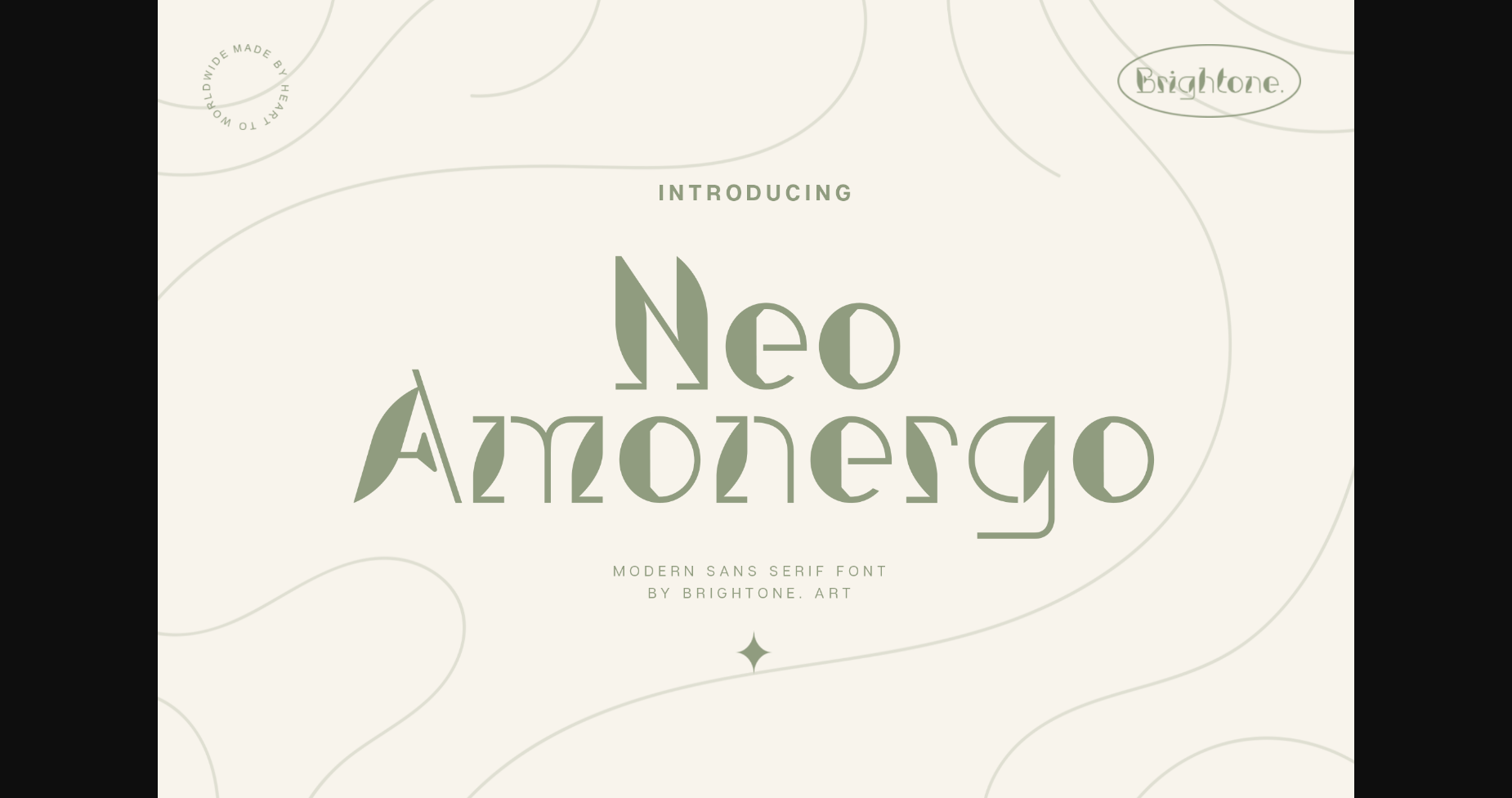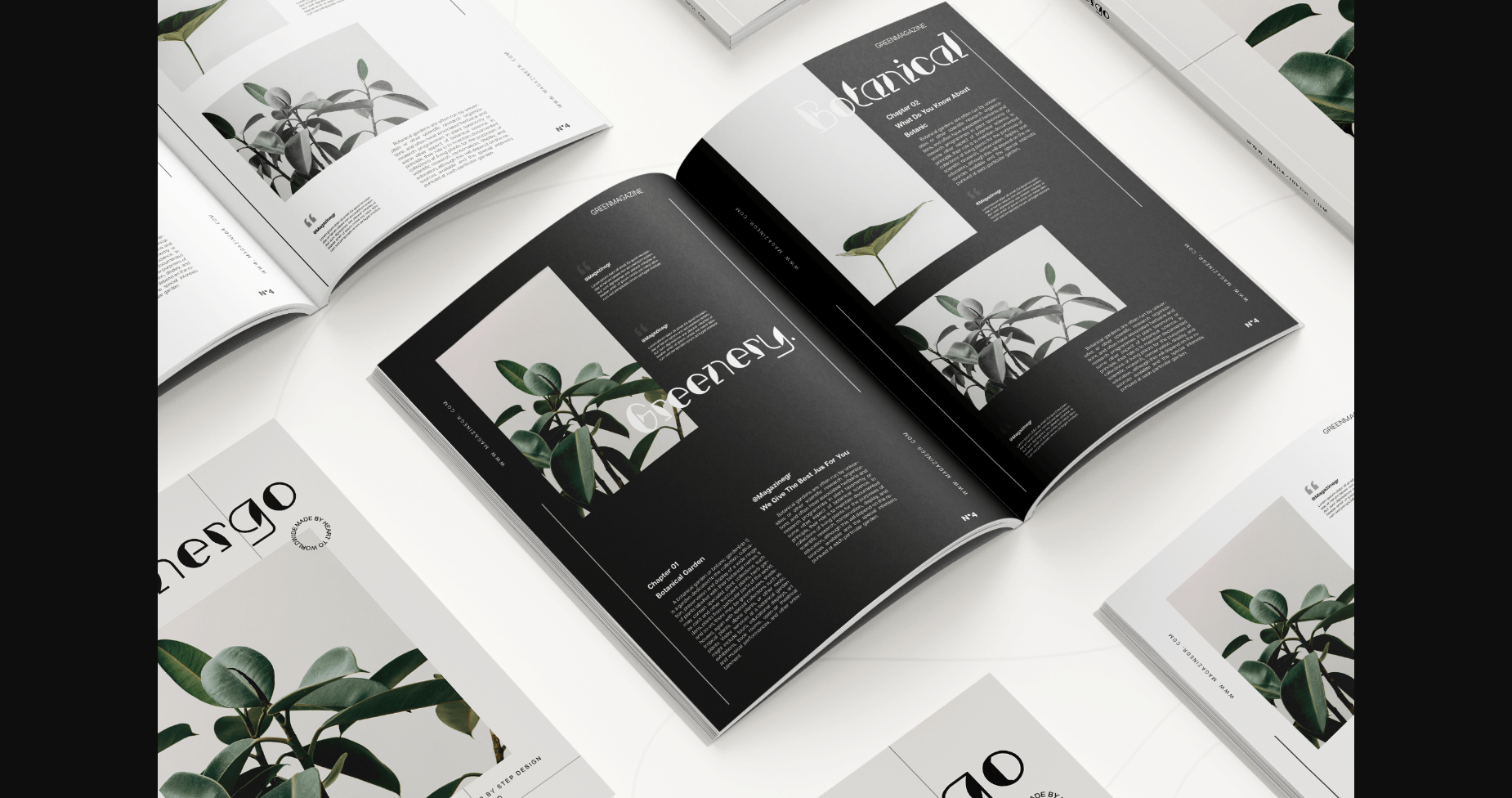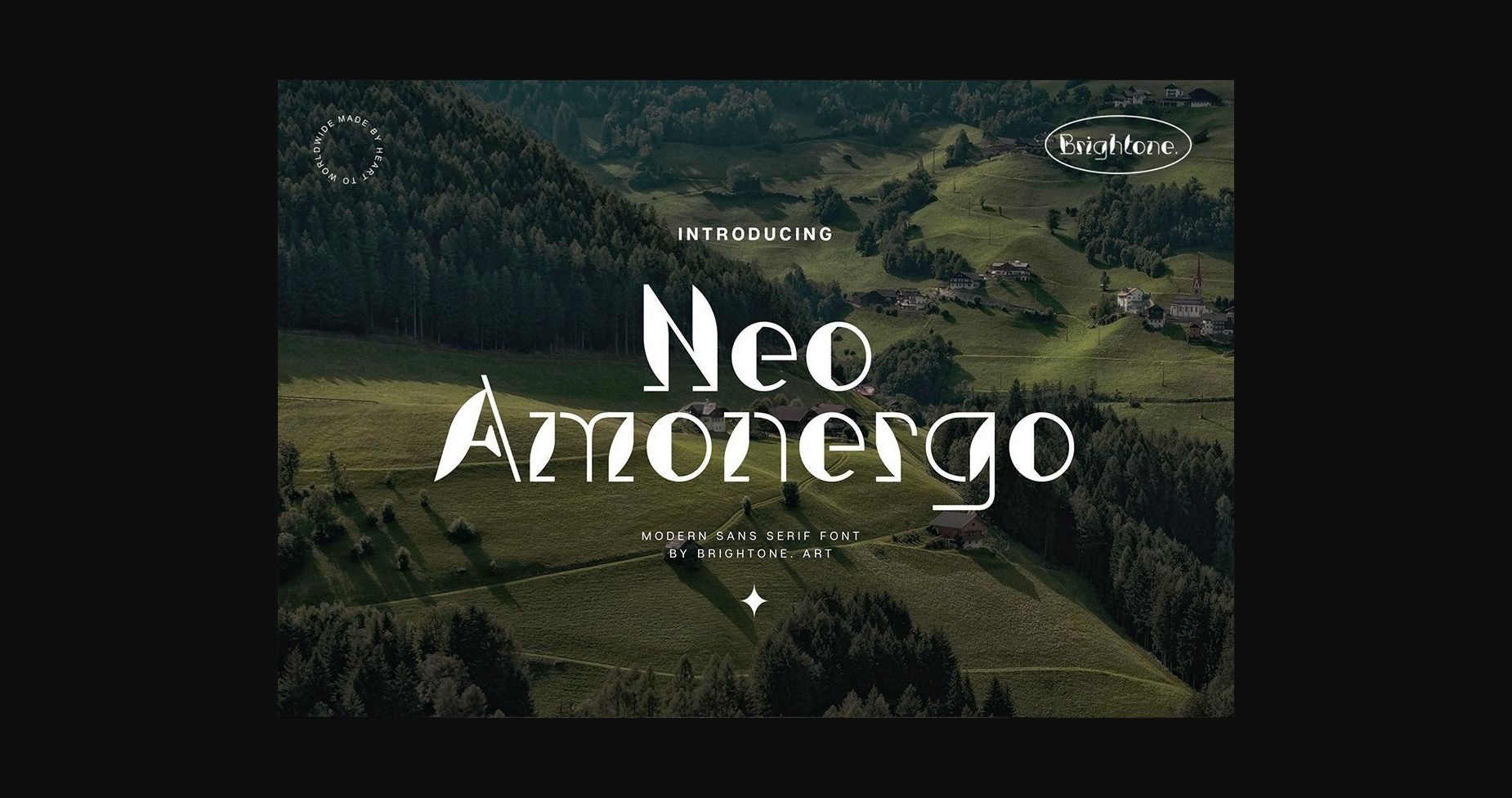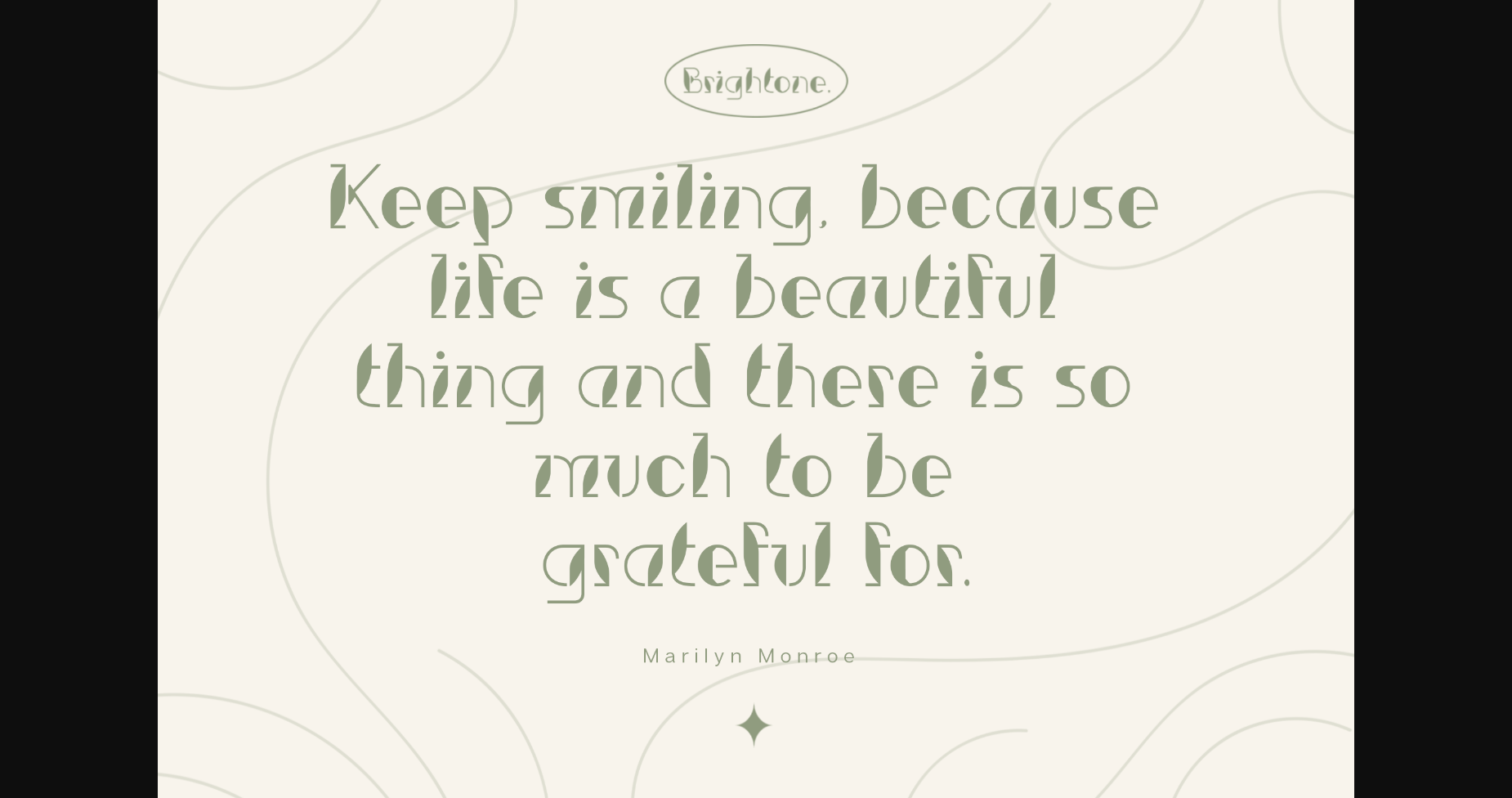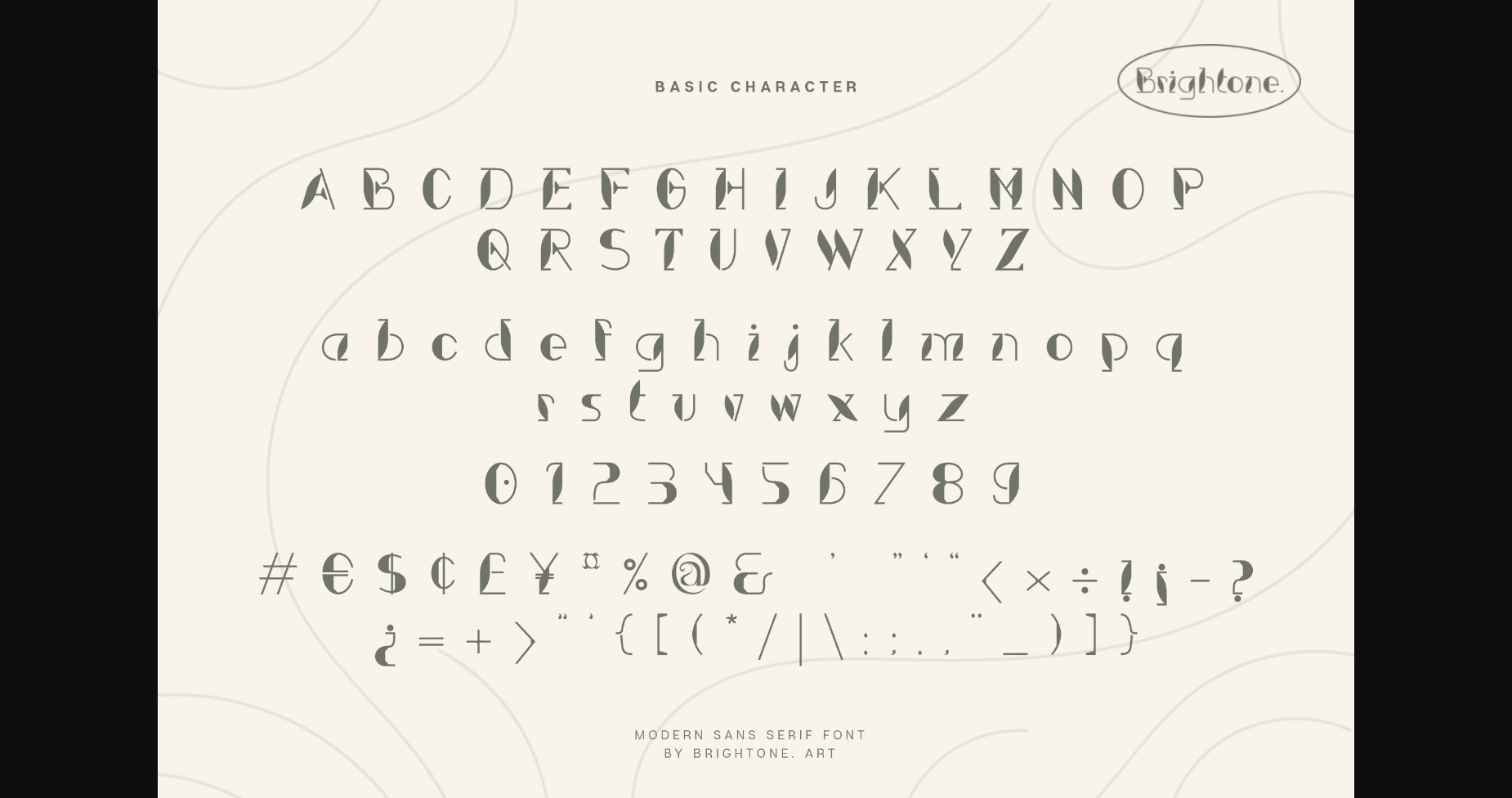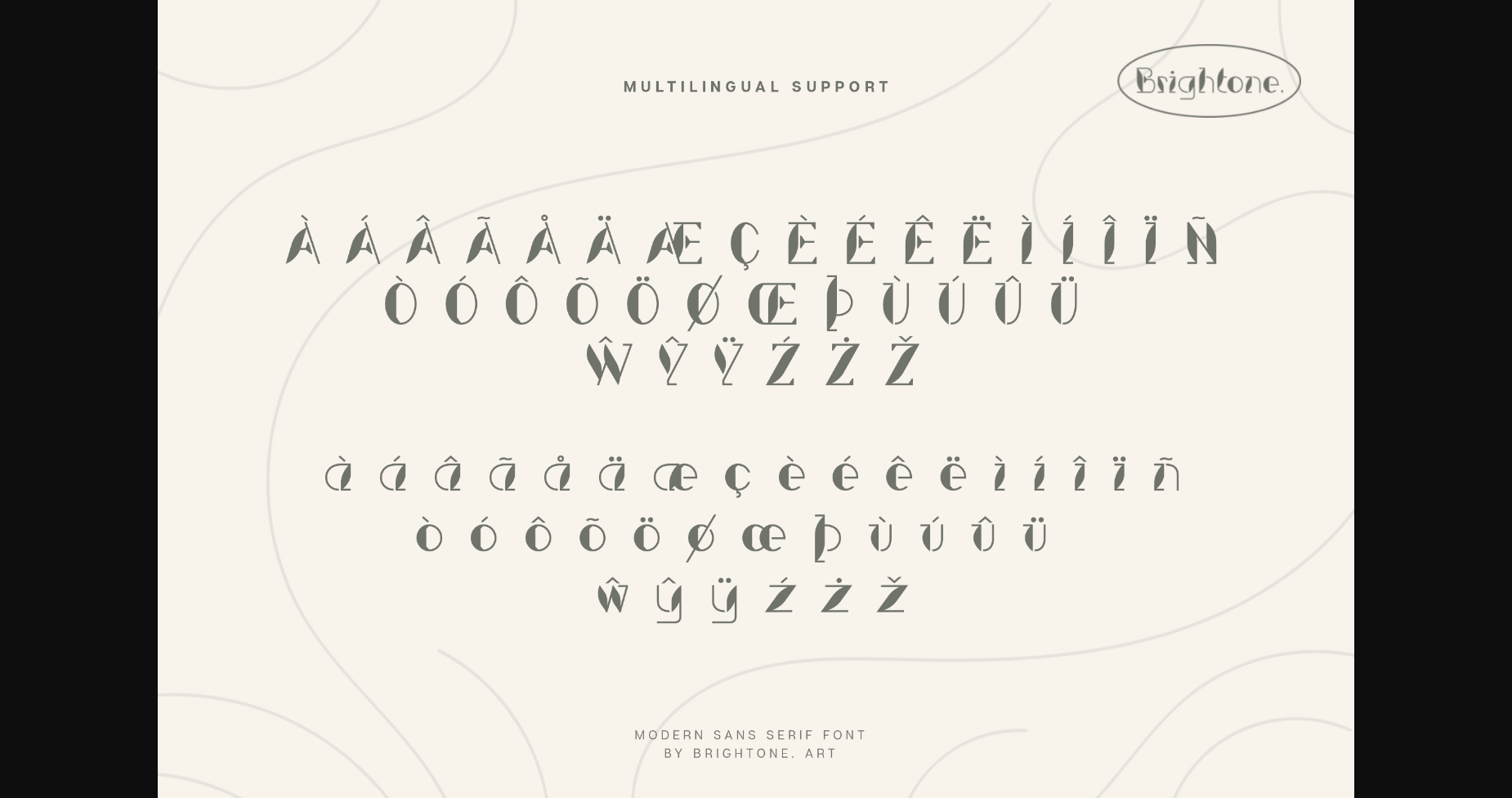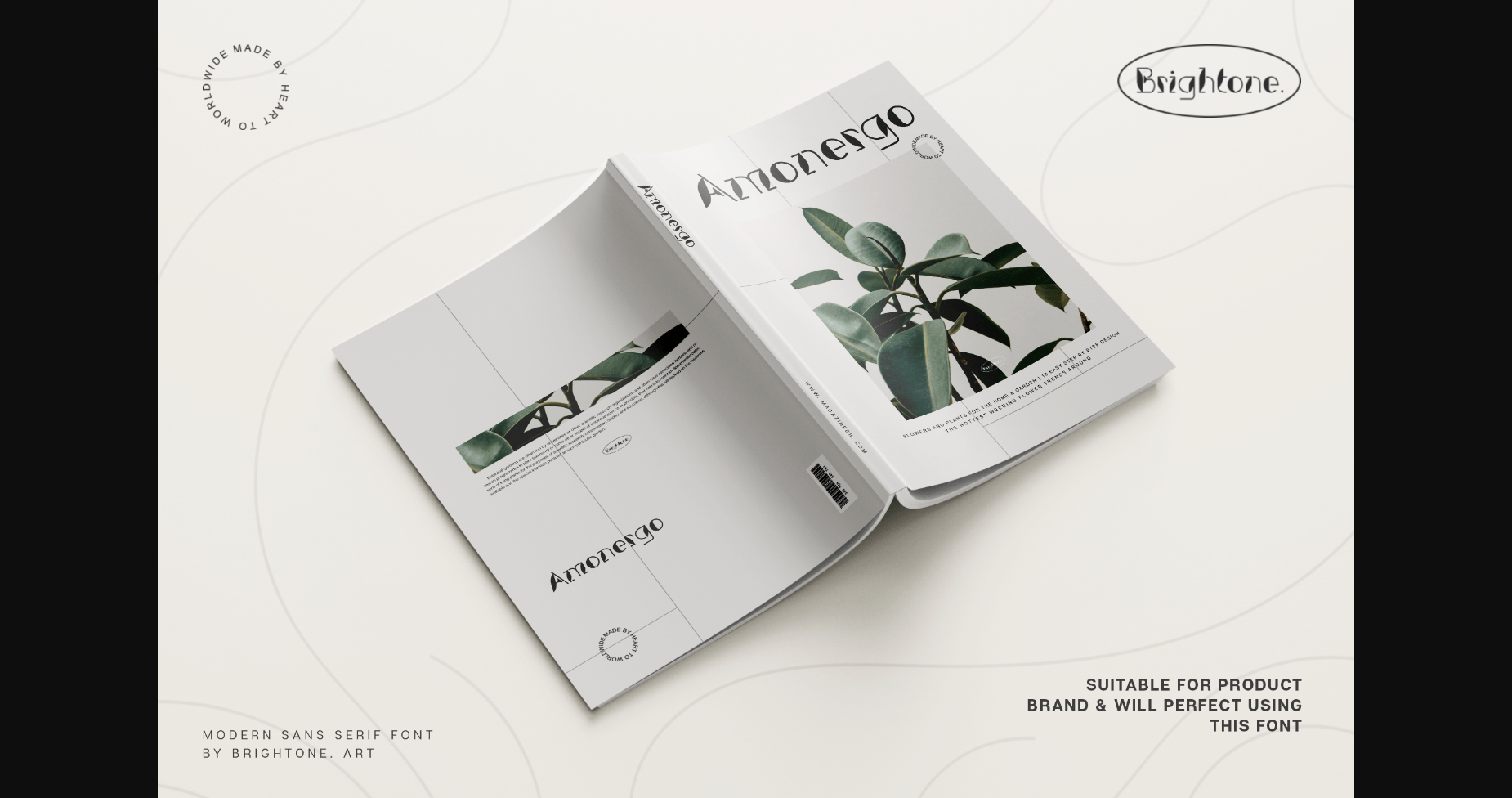
Neo Amonergo Font
About Neo Amonergo Font
Neo Amonergo is a modern sans serif font with fancy style and unique touch. Neo Amonergo would be perfect for photography, watermarks, social media posts, advertisements, logos & branding, invitations, product design, labels, stationery, wedding designs, product packaging, special events, and other projects.